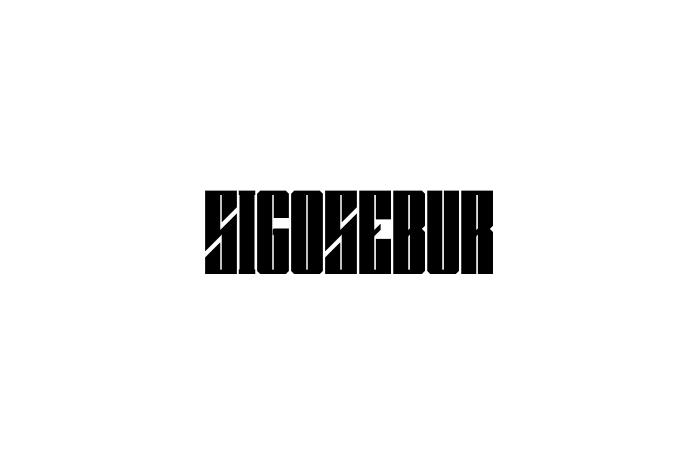
Kong Font
Introducing the modern Kong Font Font, is a cool and modern techno looking display Font This font is ideal for writing web designs, business cards, or pretty much anything else that requires a unique touch, this font designed by Kong Font is available for free download and personal use.
Font name Kong Font
Font designer Kong Font
Font Family Kong Font
Typeface classification Display,Techno